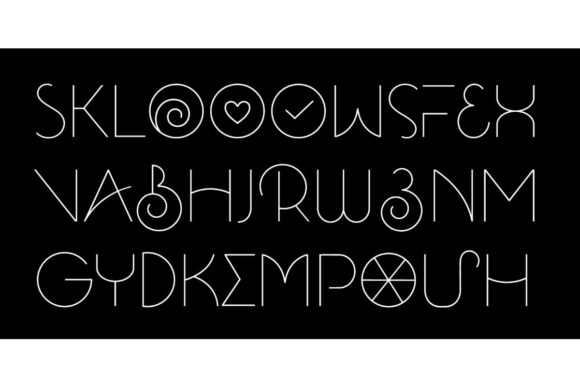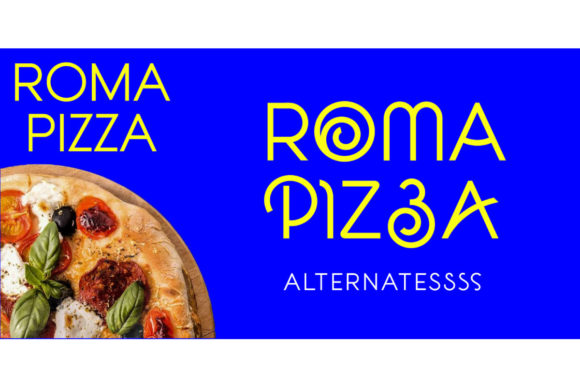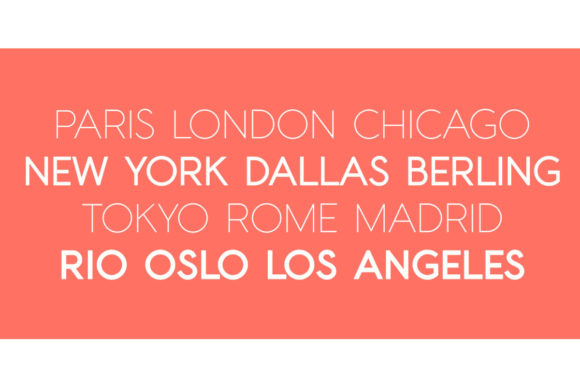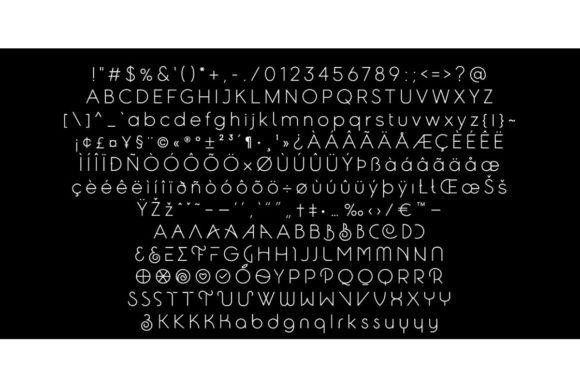
Introduction to Sklow Font
Have you ever found yourself staring at a blank canvas, trying to bring your creative vision to life? That’s exactly where I was when I stumbled upon the Sklow Font – a game-changer in my design process. Its clean lines, simplicity, and versatility made it the perfect match for my project, elevating it to a whole new level.
As a designer, having access to high-quality design resources like the Sklow Font can be a total game-changer. Not only does it save time, but it also helps bring your creative project to life with ease. Whether you’re working on a personal or professional project, the Sklow Font is a valuable addition to your design toolkit, offering a transparent background and a wide range of customization options.
Key Features of Sklow Font
- High-quality design resource ideal for creative projects, available for free download with a transparent background.
- Features a clean and modern design, making it perfect for logos, branding materials, and other visual identity elements.
- Sklow Font is available in 5 different font styles, each with its unique characteristics, allowing for a high degree of customization.
- Includes a comprehensive character set, including uppercase and lowercase letters, numbers, and special characters.
Honest Review: Sklow Font
As a designer, I’m always on the lookout for high-quality design resources to elevate my creative projects. Recently, I stumbled upon the Sklow Font, and I’m excited to share my honest review with you.
Here are some of the things that work well with the Sklow Font:
- ✨ High-quality font files that are perfect for print and digital projects
- ✨ Transparent background, making it easy to overlay on any image or design
However, I did encounter a few limitations with the Sklow Font:
- ⚠️ Limited font styles and weights, which may not be suitable for all design projects
- ⚠️ Some users may find the font to be a bit too minimalist, lacking in character
Overall, I think the Sklow Font is a great addition to any designer’s toolkit. While it may have some limitations, its high quality and transparent background make it a versatile design resource that’s perfect for a variety of creative projects.
Tips for Getting the Most Out of Sklow Font
Experiment with different font sizes and styles to create a unique look. Use Sklow Font in combination with other design elements, such as images and graphics, to create a visually appealing design. Sklow Font is perfect for creative projects that require a high-quality, unique touch.
Sklow Font is perfect for a variety of creative projects, including logos, business cards, and social media graphics. Its high-quality design and transparent background make it ideal for overlaying text on images or backgrounds. Use Sklow Font to add a unique touch to your designs and stand out from the crowd.